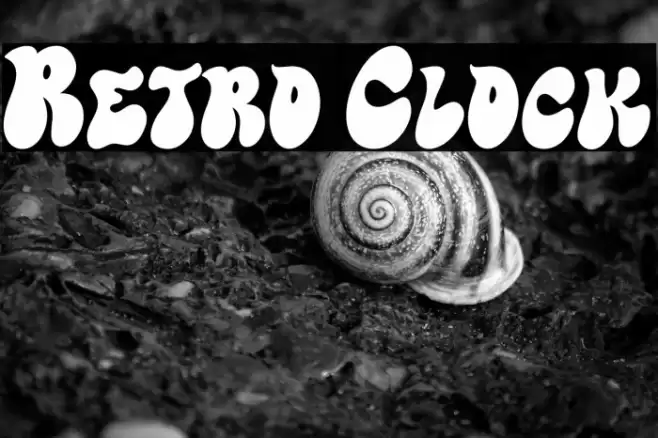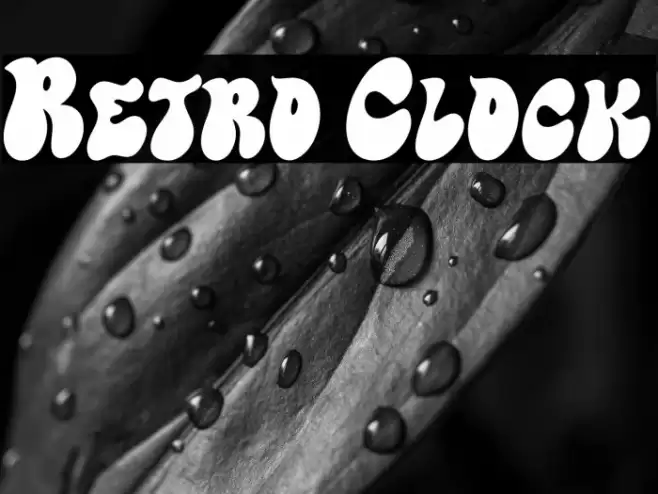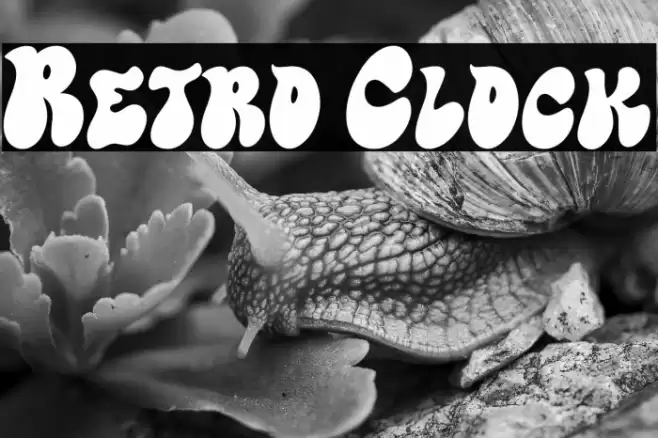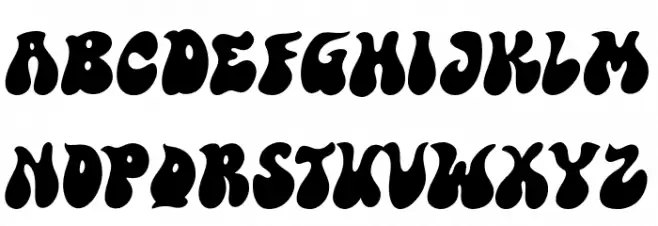
Retro Clock Font
Retro Clock Description
This font features a bold and playful design with a distinctly retro aesthetic. The characters are rounded and bulbous, creating a sense of movement and fluidity. The exaggerated curves and thick strokes give it a unique, eye-catching appearance. The style is reminiscent of 1960s and 1970s design, making it ideal for projects that aim to evoke a sense of nostalgia. The font's boldness ensures it stands out, while its whimsical nature adds a touch of fun and creativity to any design.
A bold, retro font with playful, bulbous characters from Uncategorized fonts.
- Font: Retro Clock
- Proposed Projects: Ideal for vintage-themed posters, retro branding, playful logos, and creative headlines.
- Overall Style: Vintage